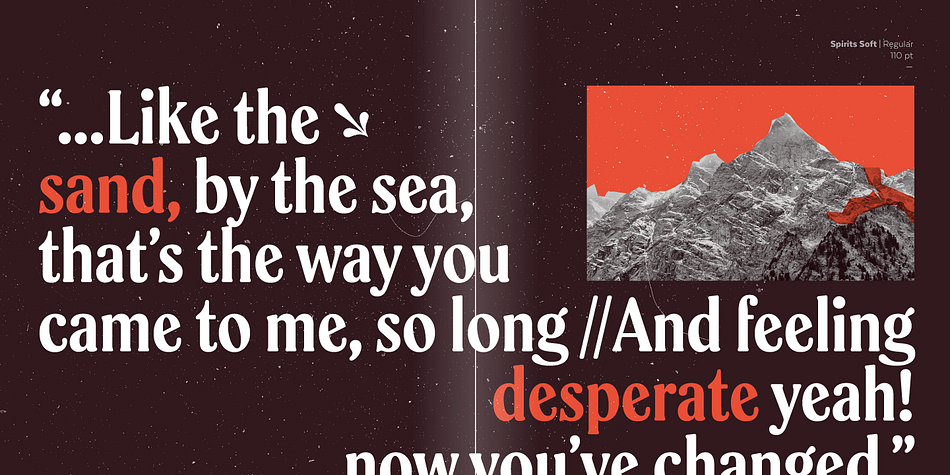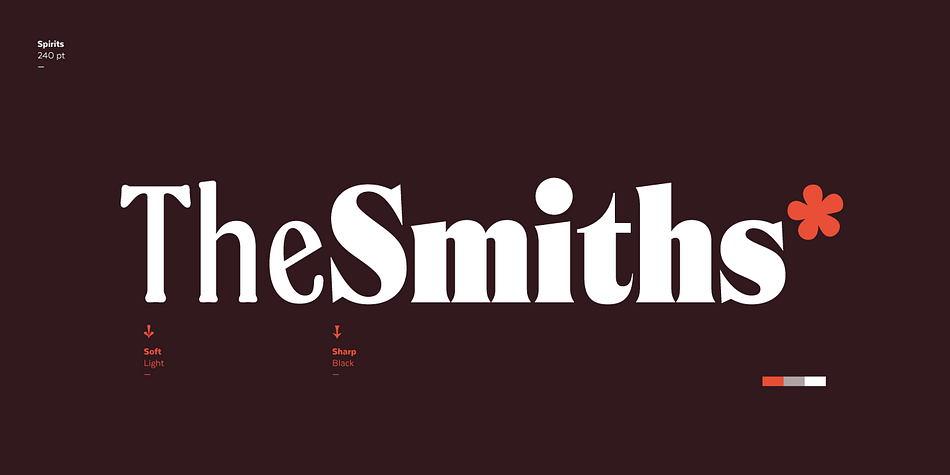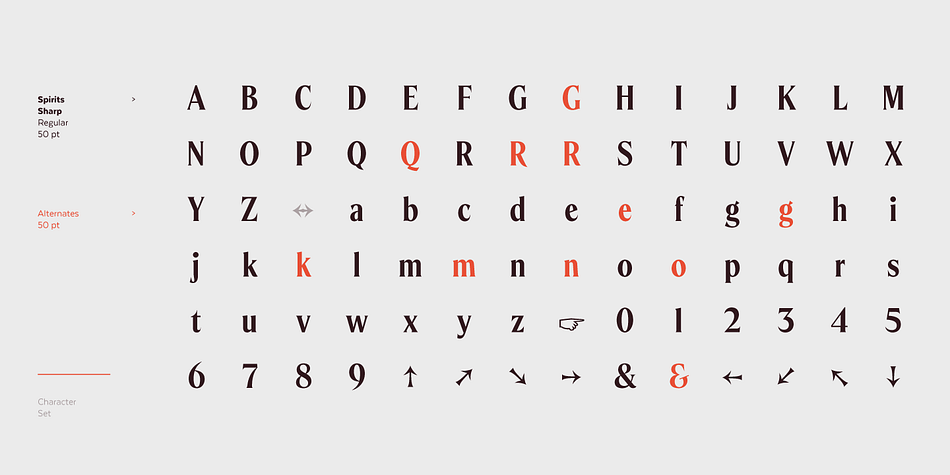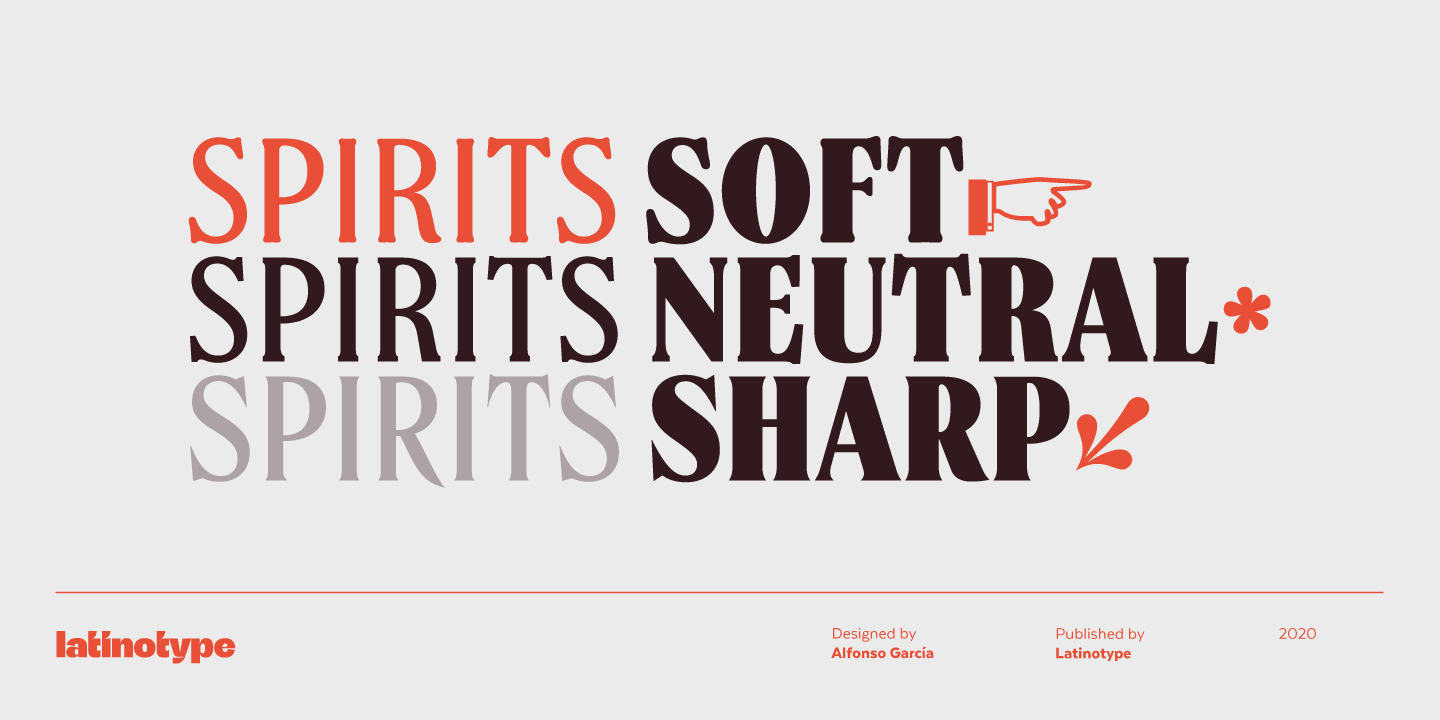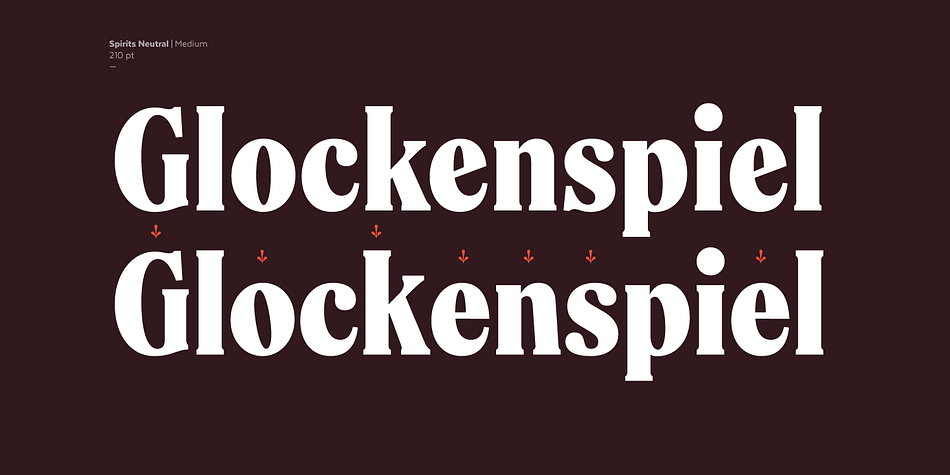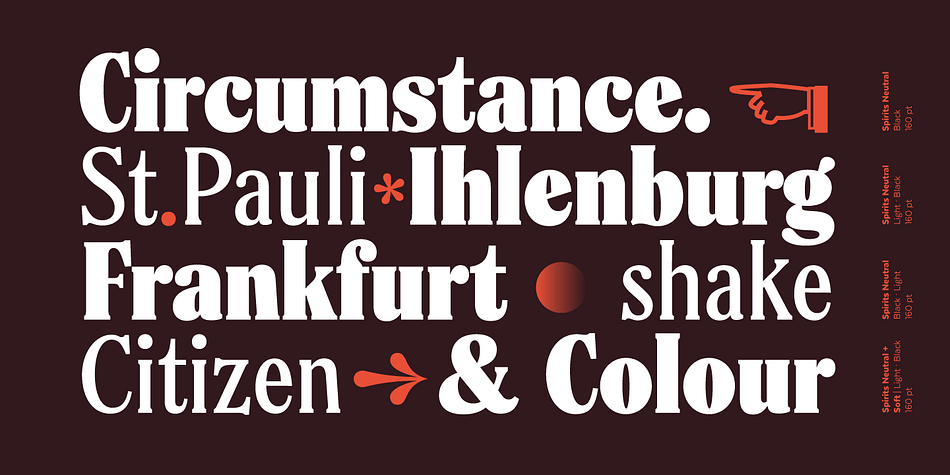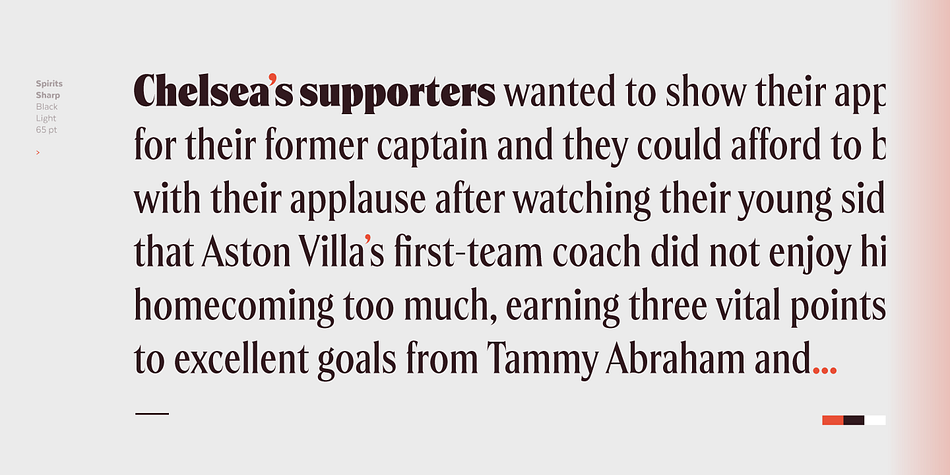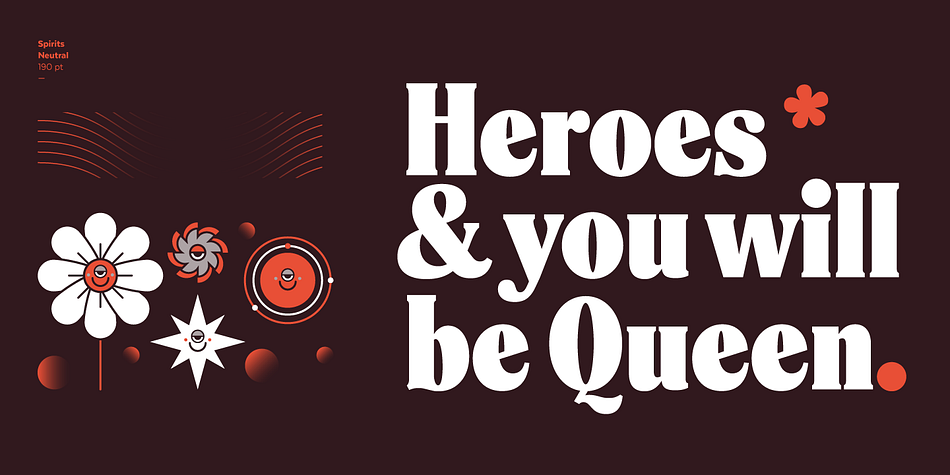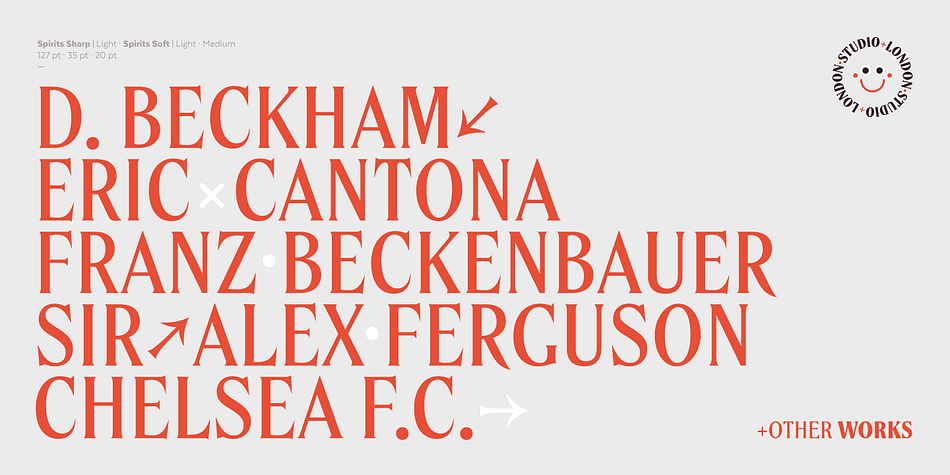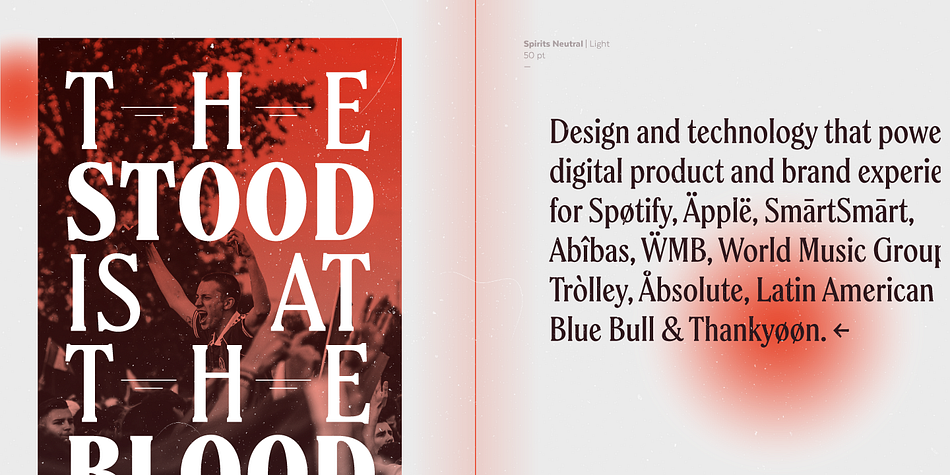
Designed by Alfonso García, Spirits is a serif font family. This typeface has twelve styles and was published by Latinotype.
Spirits design was initially based on Hermann Ihlenburg’s Schoeffer Old Style from the 1912 ATF catalog. Soft is the closest version to the printed original typeface. Neutral, with more formal serifs, is ideal for editorial design, for example newspaper headlines. Sharp, more contemporary, is the best choice for meeting today’s design needs.
Condensed proportions and large x-height, features found in the original font, make Spirits ideally suited for headlines and branding design.
As you would expect from Latinotype, this font comes with a standard character set that supports over 200 languages. Each version includes its own alternates and comes in 4 weights, ranging from Light to Black, resulting in a total of 12 font styles.